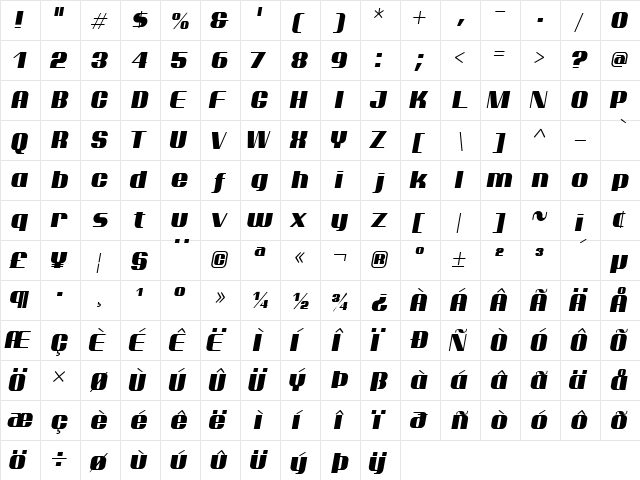
Ptarmigan Italic
Design Context for Ptarmigan Typeface
Ptarmigan is a composed and adaptable typeface that performs quietly and consistently across a wide range of design contexts. Its italic angle brings a sense of urgency and motion to the letterforms.
Pro Tip: Use Ptarmigan for emphasis, pull quotes, and subheadings where its slanted energy can add rhythm to the layout.